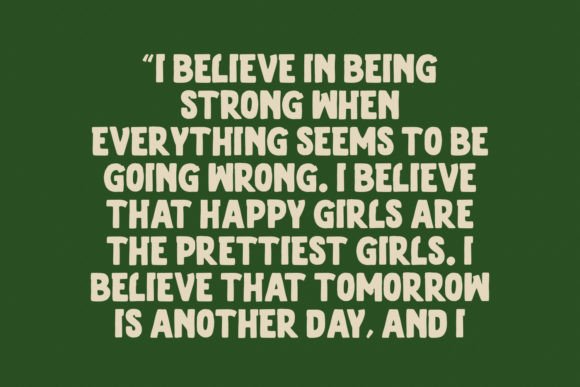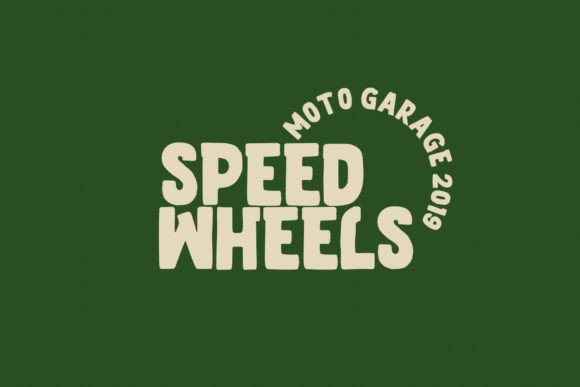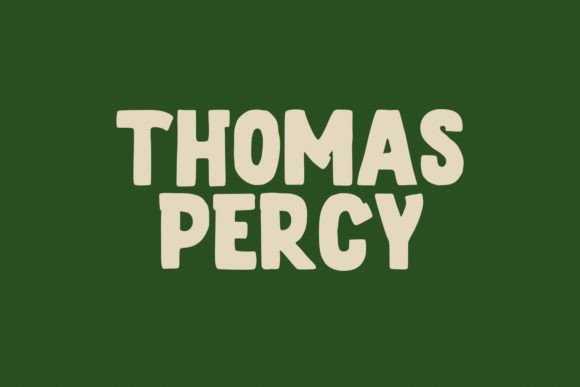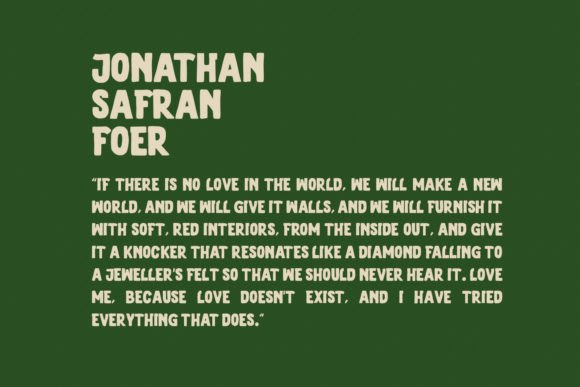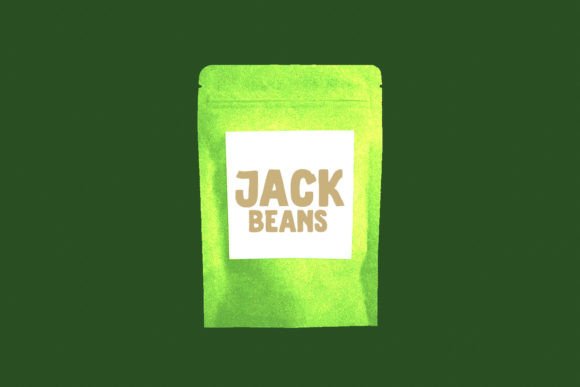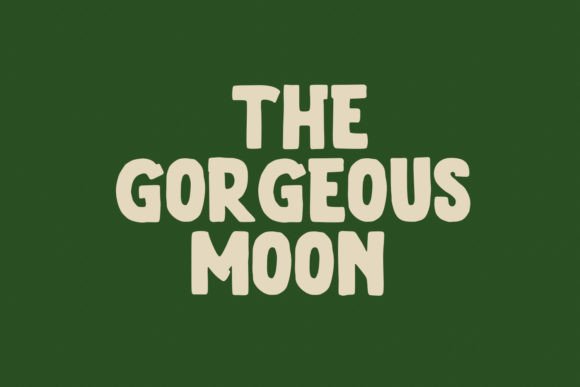
Bogers Font: Elevate Your Designs with a Unique All-Caps Handwritten Display Font
Are you tired of using the same old fonts in your designs? Do you want to add a touch of personality and confidence to your visuals? Look no further than Bogers Font, a unique all-caps handwritten display font that’s sure to make your designs stand out. In this article, we’ll take a closer look at Bogers Font, its features, and how you can use it to elevate your designs.
What is Bogers Font?
Bogers Font is a one-of-a-kind all-caps handwritten display font that’s designed to evoke a strong, confident personality. With its striking details on each side of the lettering, this font is perfect for designers and crafters who want to add a bold, classic look to their visuals. Whether you’re creating a vintage-inspired project or want to add a touch of sophistication to your designs, Bogers Font is an excellent choice.
Key Features of Bogers Font
So, what makes Bogers Font so special? Here are some of its key features:
- Unique All-Caps Design: Bogers Font is an all-caps font, which means it’s perfect for headlines, titles, and other applications where you want to make a statement.
- Handwritten Style: Despite being an all-caps font, Bogers Font has a handwritten feel that’s warm and inviting.
- Striking Details: Each letter in Bogers Font features striking details on each side, which adds to its confident and sophisticated personality.
- Vintage-Inspired: Bogers Font has a classic, vintage feel that’s perfect for designers who want to create timeless designs.
How to Use Bogers Font in Your Designs
Now that we’ve covered the features of Bogers Font, let’s talk about how you can use it in your designs. Here are some ideas to get you started:
- Headlines and Titles: Use Bogers Font to create bold, eye-catching headlines and titles that grab attention.
- Vintage-Inspired Projects: Bogers Font is perfect for vintage-inspired projects, such as posters, flyers, and brochures.
- Logos and Branding: Use Bogers Font to create a unique and memorable logo or brand identity.
- Social Media Graphics: Add a touch of personality to your social media graphics with Bogers Font.
Tips for Pairing Bogers Font with Other Fonts
When using Bogers Font in your designs, it’s essential to pair it with other fonts that complement its style. Here are some tips for pairing Bogers Font with other fonts:
- Use a Contrasting Font: Pair Bogers Font with a font that’s more minimalist or sans-serif to create contrast and visual interest.
- Choose a Font with a Similar Style: If you want to create a cohesive look, pair Bogers Font with a font that has a similar handwritten or vintage feel.
- Experiment with Font Sizes: Play around with different font sizes to create visual hierarchy and emphasize certain elements of your design.
Bogers Font is a unique and versatile font that’s perfect for designers and crafters who want to add a touch of personality and confidence to their visuals. With its striking details, vintage-inspired style, and handwritten feel, Bogers Font is an excellent choice for a wide range of design projects. Whether you’re creating a vintage-inspired poster or want to add a bold, classic look to your social media graphics, Bogers Font is sure to elevate your designs.